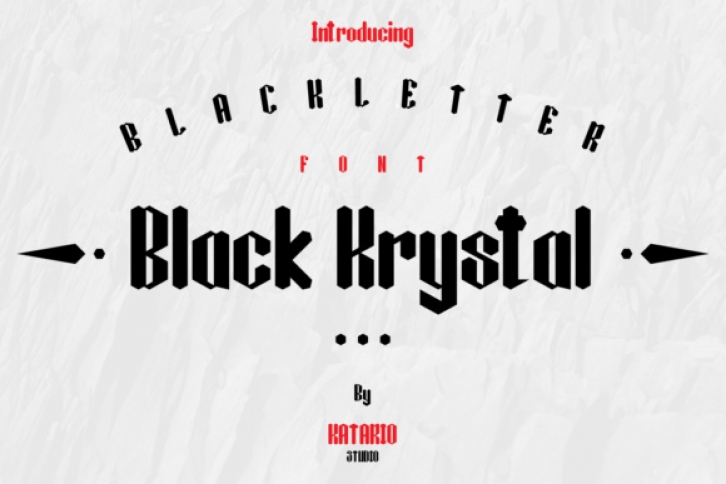
Black Krystal is a new typeface with a classy, elegant, clean and vintage feel character set. Black Krystal is suitable for many creative products & designs such as: street wear, typography designs, vintage art, t-shirt designs, logotypes, packaging and much more!